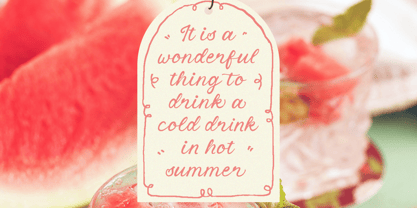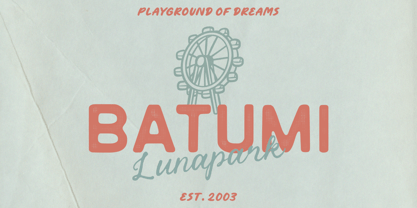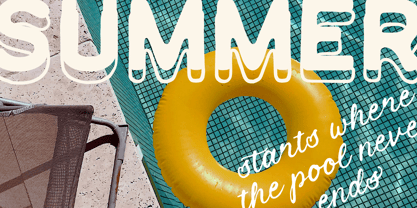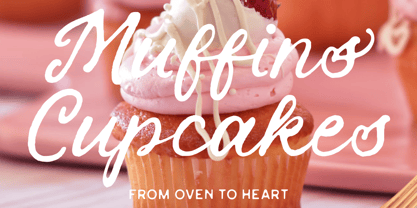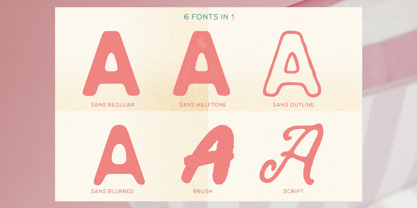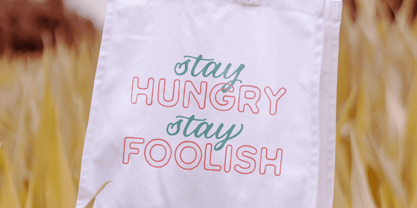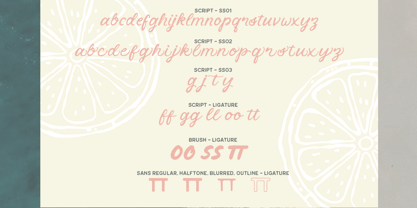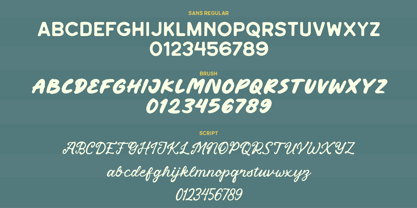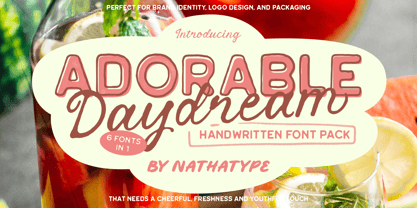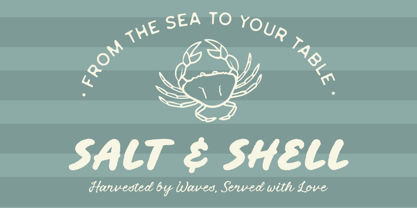
Adorable Daydream
by Nathatype
The Adorable Daydream Font Family was designed by Donis Miftahudin and published by Nathatype. Adorable Daydream contains 6 styles and family package options. More about this family
Adorable Daydream is a charming handwritten font pack designed to bring a playful and cute vibe to your projects. This versatile collection includes six unique styles: Sans Regular, Sans Halftone, Sans Outline, Sans Blurred, Brush, and Script. Perfect for your work. Adorable Daydream lets you mix and match styles to create fun, eye-catching designs with ease. In addition, enjoy the features here. Features: Ligatures Stylistic Sets Multilingual Supports PUA Encoded Numerals and Punctuations Adorable Daydream fits in branding, packaging, quotes, logos, posters, and many more designs. Find out more ways to use this font by taking a look at the font preview. Thanks for purchasing our fonts. Hopefully, you have a great time using our font. Feel free to contact us anytime for further information or when you have trouble with the font. Thanks a lot and happy designing.